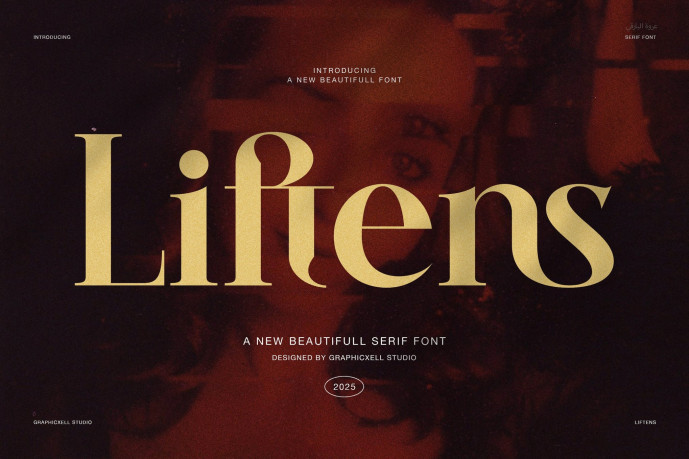
Liftens Elegant Serif Font
Designer: Graphicxell
Liftens Elegant Serif Font is a refined modern serif font that blends timeless beauty with contemporary confidence. Designed by Graphicxell Studio, this typeface combines smooth contrast, graceful curves, and artistic ligatures to create a truly luxurious impression.
From the very first glance, Liftens feels elegant yet powerful. Each character has been shaped with purpose, ensuring perfect balance between classic design and modern minimalism. Because of its versatility, you can easily use Liftens for logos, editorials, invitations, or websites, and every result will look sophisticated and stylish.
🌟 Perfect For
• Liftens adapts effortlessly to various creative projects, including:
• Luxury branding and packaging that feels exclusive and refined
• Editorial headlines that attract instant attention
• Wedding stationery and event design that feels timeless
• Fashion campaigns and product labels with modern allure
• Web design and business identity that stand out beautifully
✨ Font Features
• Full uppercase and lowercase characters
• Punctuation, symbols, and numerals
• Unique and graceful ligatures
• Elegant proportions and visual balance